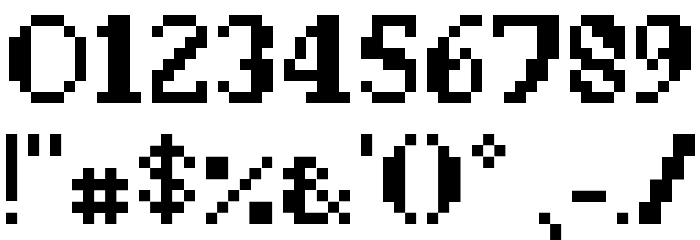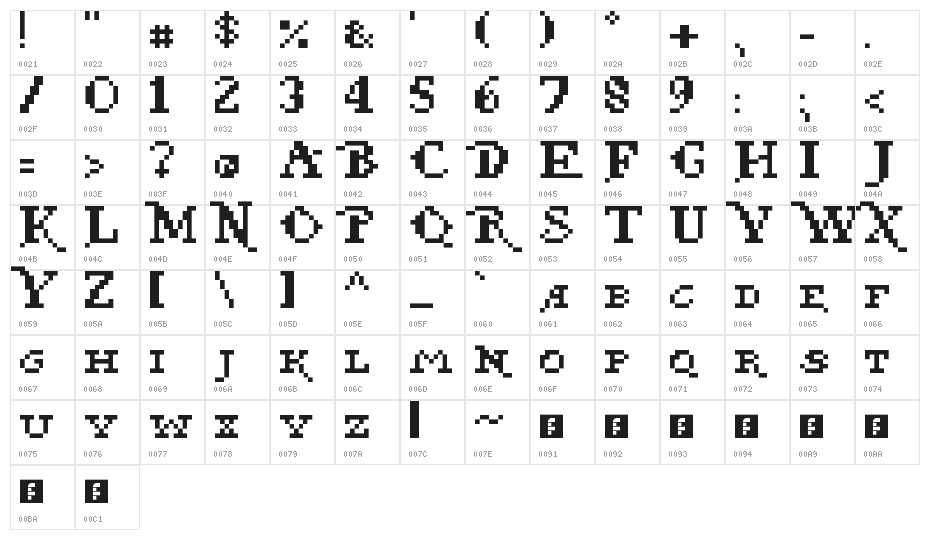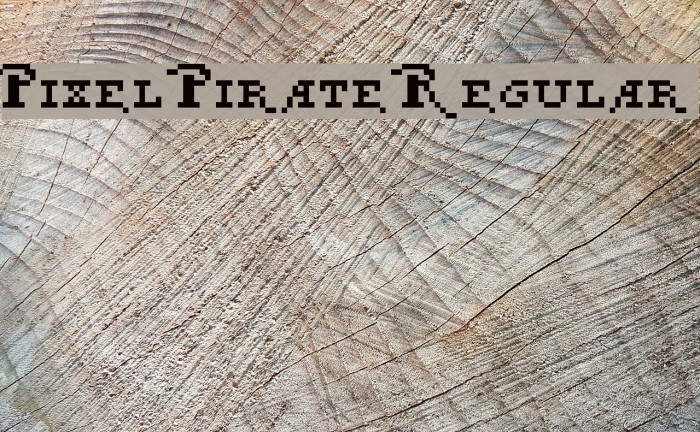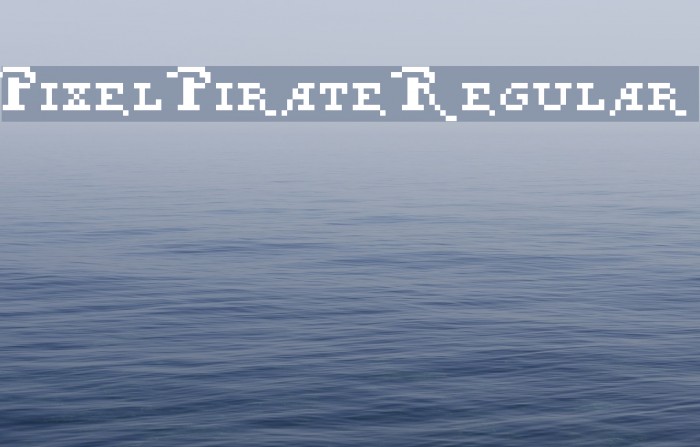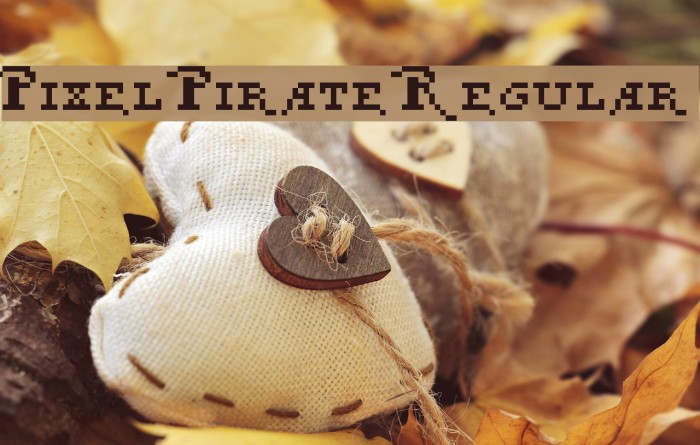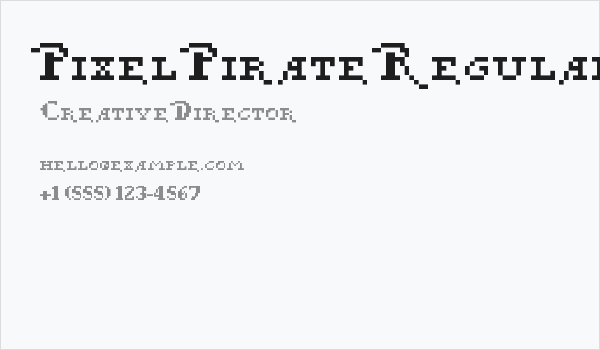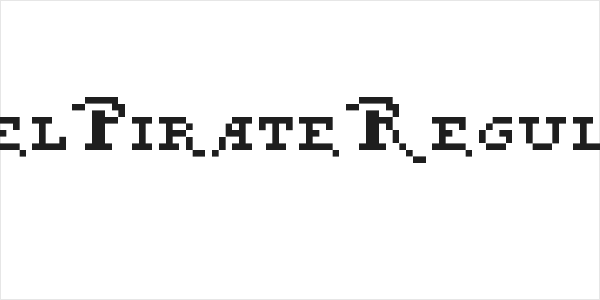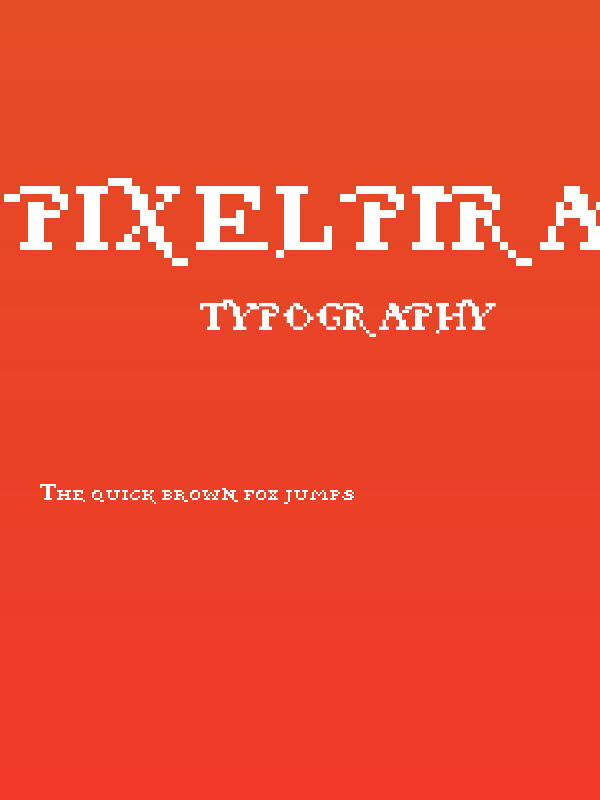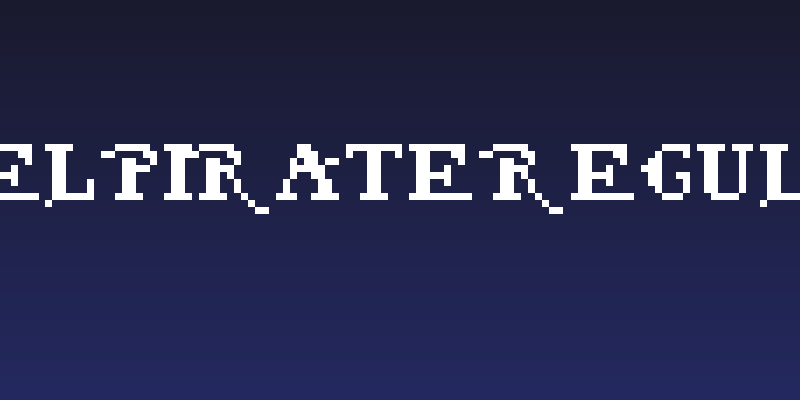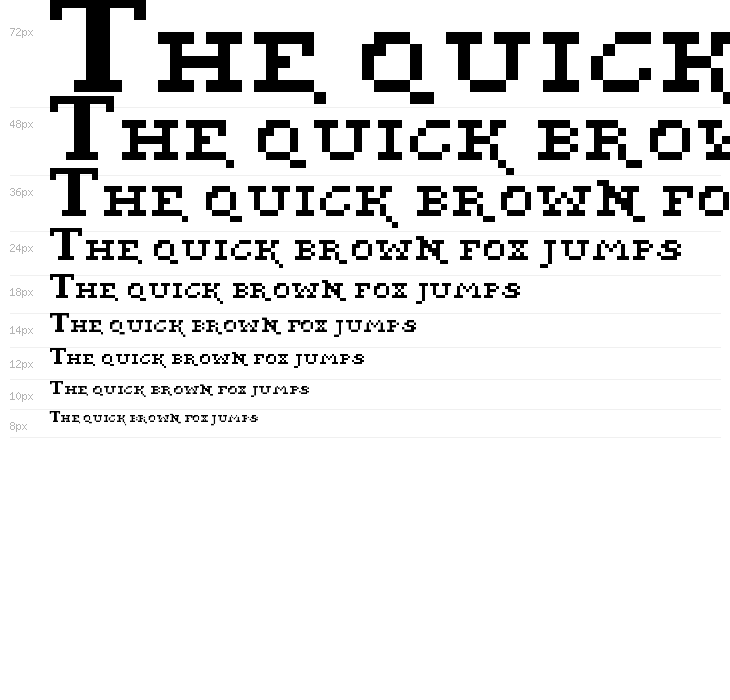
Pixel Pirate Regular Font
Pixel Pirate Regular Description
This font features a distinct pixelated style reminiscent of early digital and video game typography. Each character is constructed with a blocky, grid-like appearance, giving it a retro, 8-bit aesthetic. The uppercase and lowercase letters maintain a consistent pixelated form, with sharp angles and uniform stroke widths. Numbers and special characters follow the same design principles, ensuring a cohesive look across all glyphs. The font's nostalgic charm makes it ideal for projects that aim to evoke a sense of vintage digital culture or gaming history.
| Use Case | Logos, Headlines, Digital Art |
| Proposed Projects | Ideal for video game design, retro-themed posters, digital art projects, and any creative work seeking a nostalgic, digital feel. |